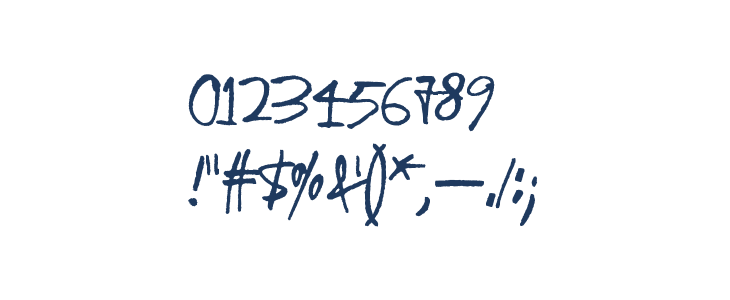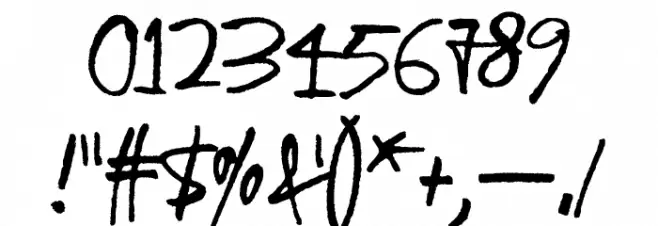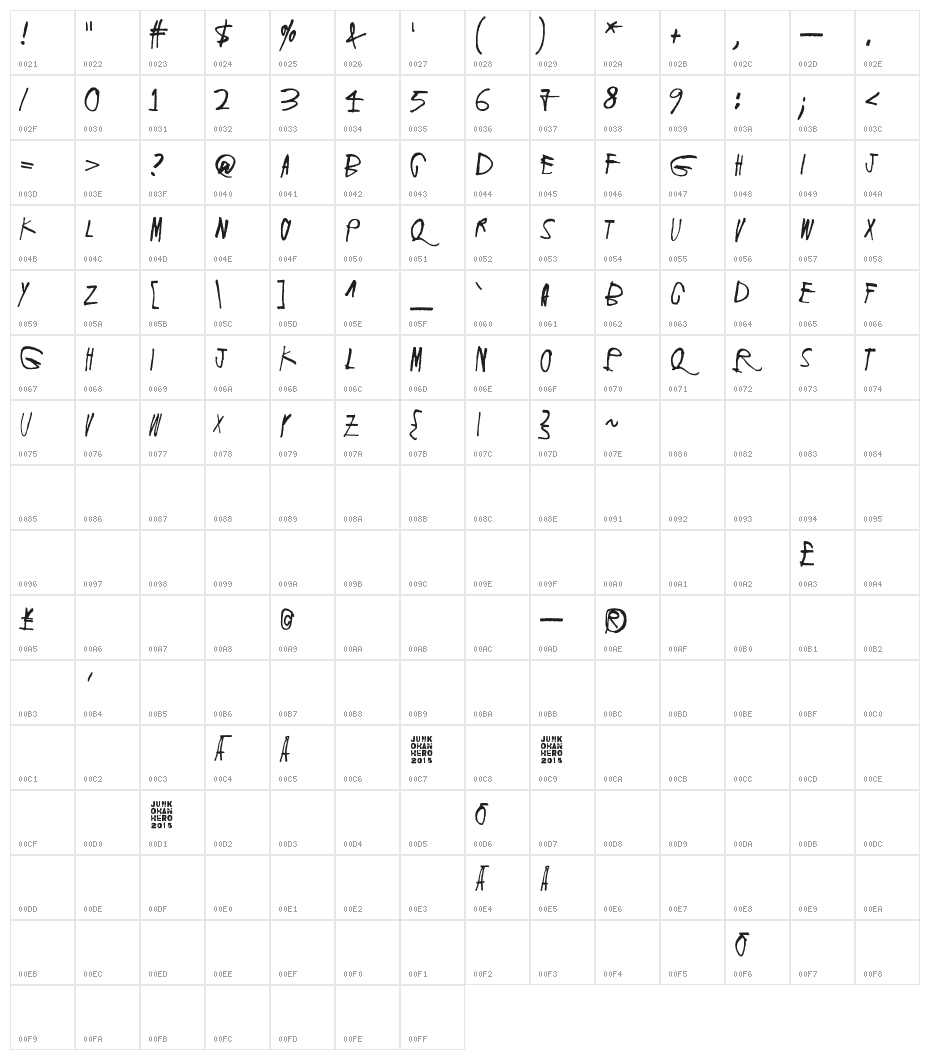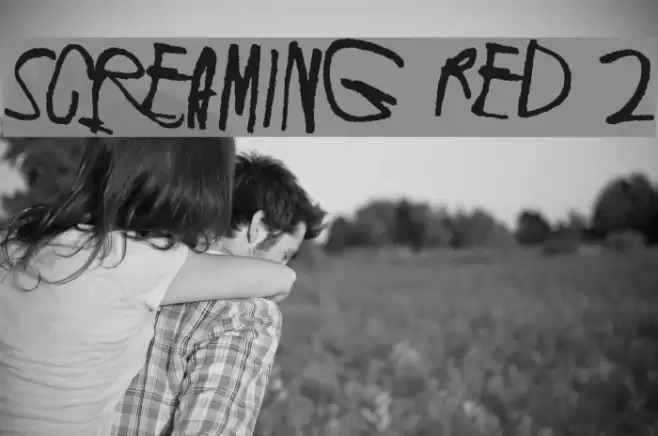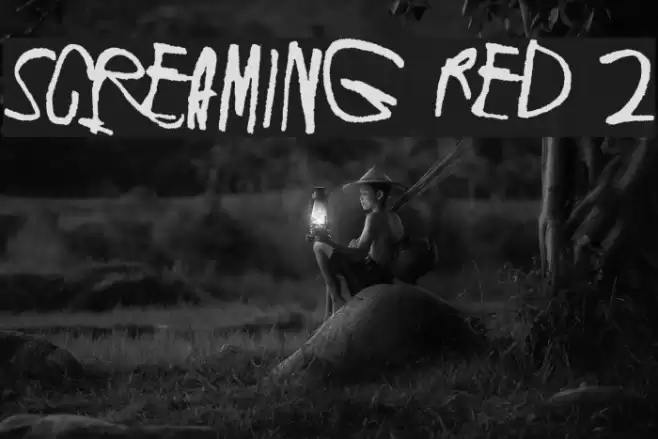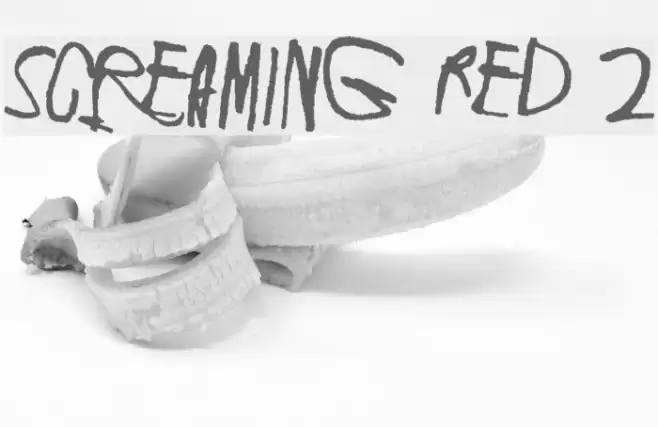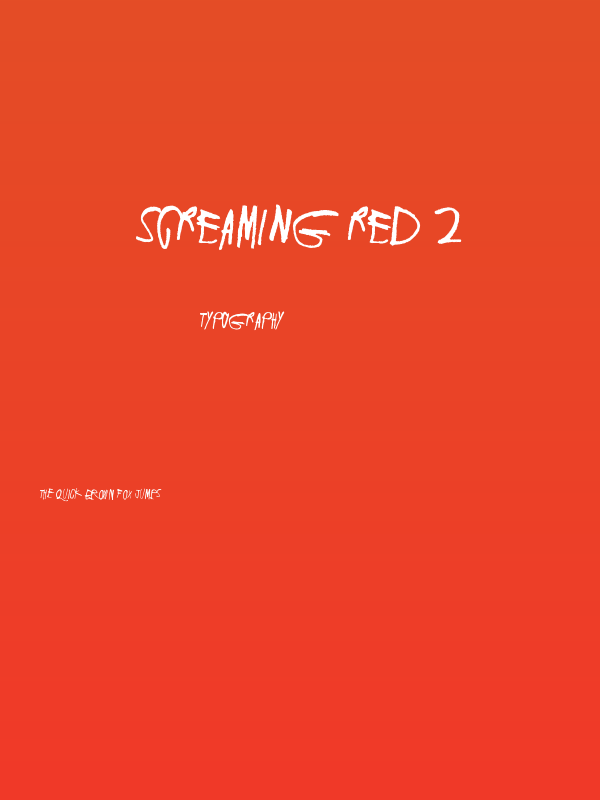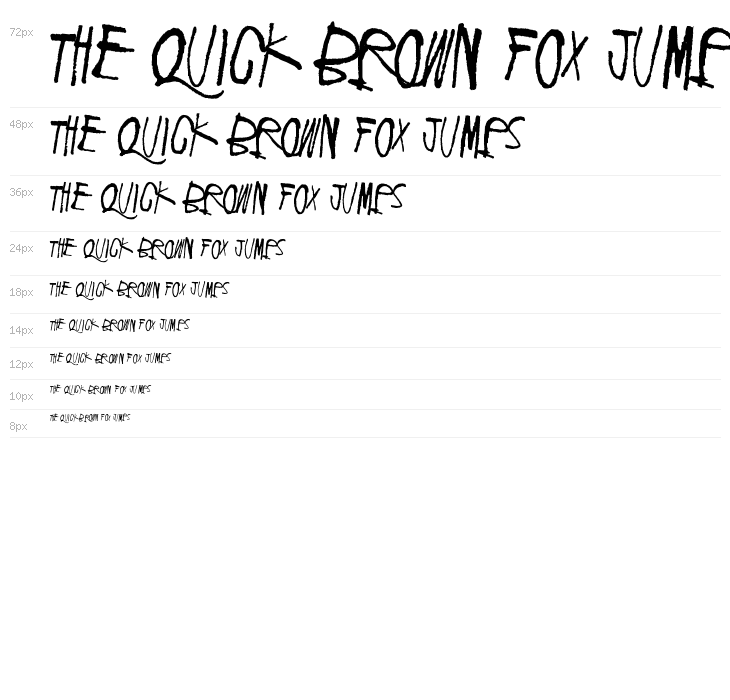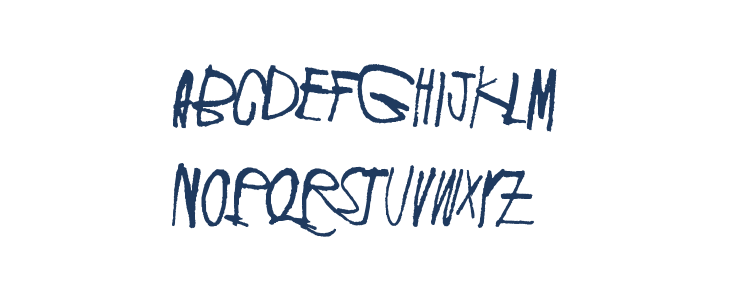
Screaming Red 2 Font
Screaming Red 2 Description
This font exhibits a bold and expressive style, characterized by its dynamic and irregular strokes. The letters have a hand-drawn appearance, with varying thickness that adds a sense of movement and energy. The uppercase and lowercase letters maintain a consistent style, with exaggerated curves and angles that give the font a rebellious and edgy feel. The numbers and special characters follow the same aesthetic, ensuring a cohesive look throughout. This font is ideal for projects that require a strong visual impact and a touch of personality.
| Proposed Projects | Ideal for posters, album covers, graffiti art, and branding that requires a bold statement. |